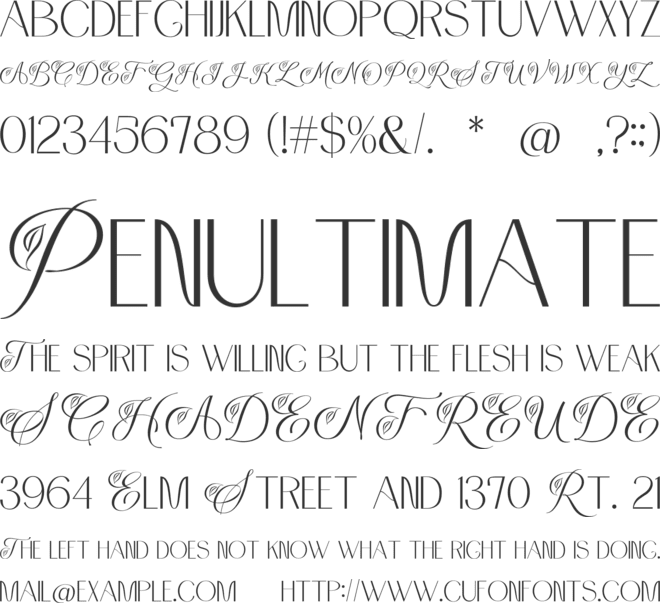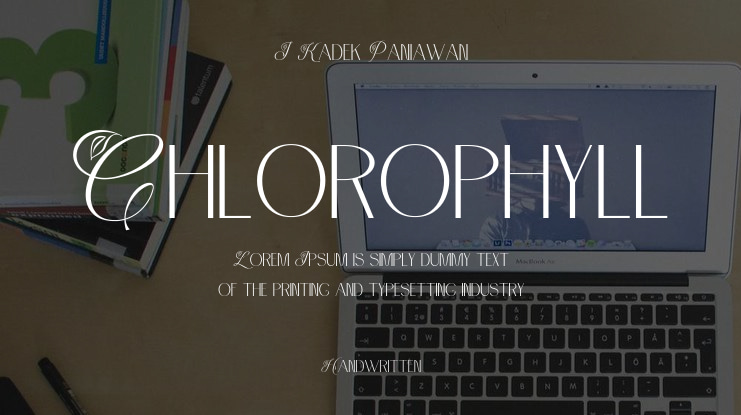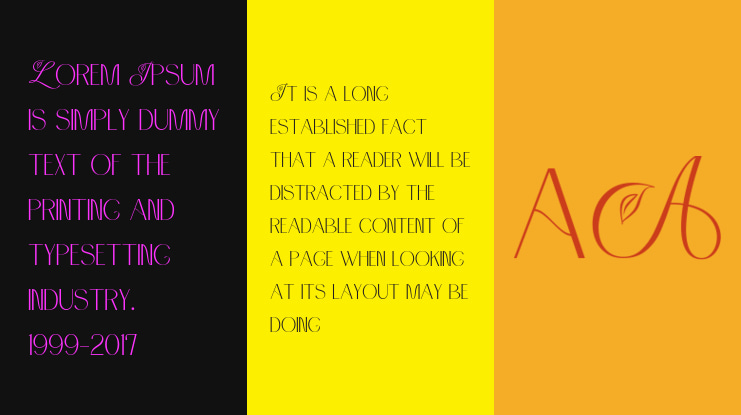
Chlorophyll Font
I Kadek Paniawan
Introducing "Chlorophyll" - A Sans Serif Font with a Refreshing Natural Elegance
Unveil the beauty of nature in your design projects with "Chlorophyll," a stunning sans serif font that combines modern simplicity with the organic charm of leaf illustrations. This elegant typeface is designed to infuse your creations with a sense of natural harmony, making it perfect for a wide range of applications, from branding to packaging and beyond.